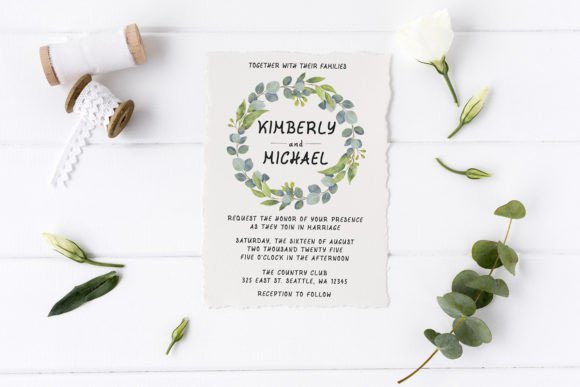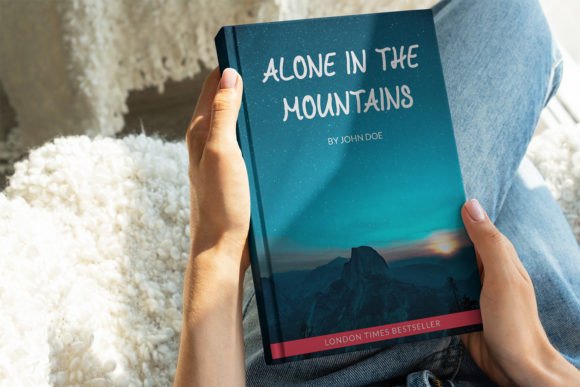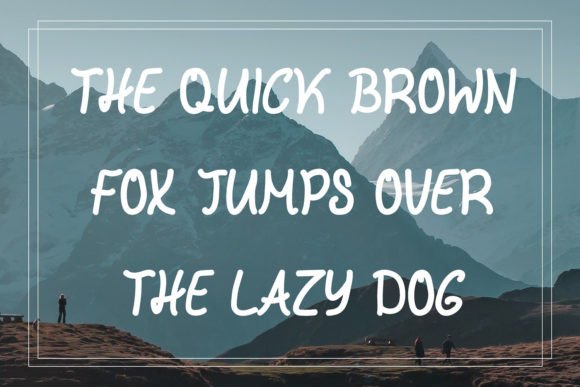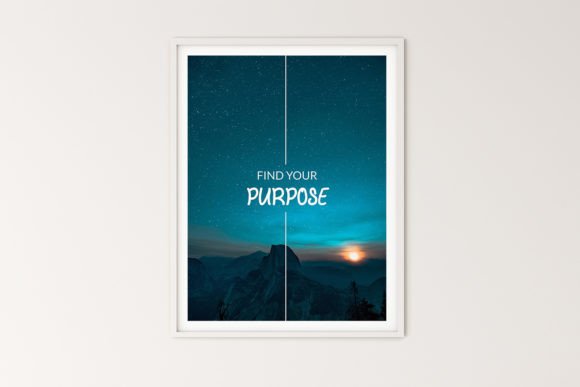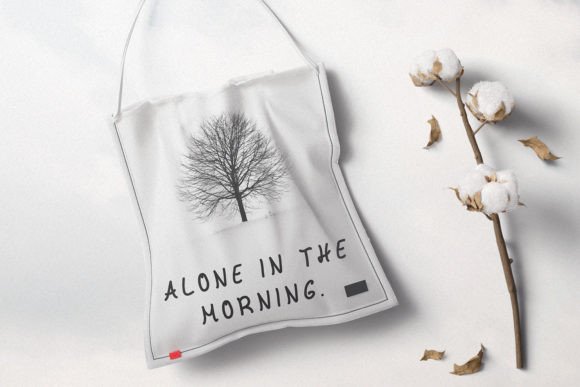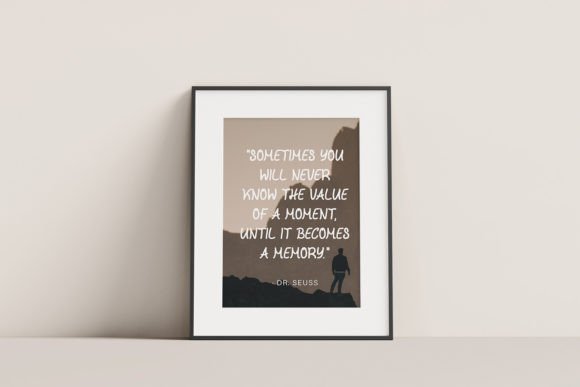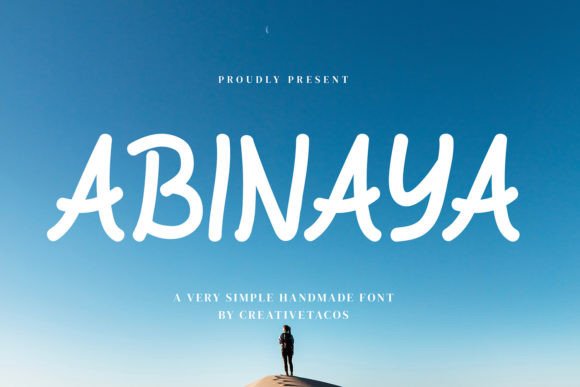
Introducing Abinaya Font: The Ultimate Handmade Font for Creative Designs
Are you a designer or crafter looking for a font that can add a touch of sweetness and quirkiness to your creations? Look no further than Abinaya Font! This handmade font is designed to bring a relaxed and casual vibe to your designs, making it perfect for a wide range of creative projects.
What is Abinaya Font?
Abinaya Font is a beautifully crafted handwritten font that exudes a sense of playfulness and charm. Its unique and irregular strokes give it a distinctly handmade feel that’s sure to capture the attention of your audience. Whether you’re working on a logo, packaging design, or social media post, Abinaya Font is the perfect choice for adding a personal touch.
Key Features of Abinaya Font
- Sweet and Quirky Design: Abinaya Font features a unique and whimsical design that’s perfect for creating eye-catching headlines, titles, and quotes.
- Casual and Relaxed Vibe: This font is designed to bring a sense of calmness and friendliness to your designs, making it perfect for branding, advertising, and marketing materials.
- Handmade Feel: The irregular strokes and imperfections in Abinaya Font give it a distinctly handmade feel that’s sure to add a touch of personality to your designs.
- Versatile: Abinaya Font is suitable for a wide range of creative projects, including packaging, presentations, logos, posters, magazine layouts, and more.
Use Cases for Abinaya Font
Abinaya Font is an incredibly versatile font that can be used for a variety of creative projects. Here are some ideas to get you started:
- Packaging Design: Add a personal touch to your product packaging with Abinaya Font. It’s perfect for labels, tags, and branding materials.
- Logos and Branding: Create a unique and memorable logo for your business or brand with Abinaya Font.
- Posters and Flyers: Use Abinaya Font to create eye-catching posters and flyers for events, promotions, and marketing campaigns.
- Social Media Graphics: Add a touch of personality to your social media graphics with Abinaya Font. It’s perfect for creating engaging and shareable content.
- Invitations and Stationery: Use Abinaya Font to create beautiful and unique invitations, greeting cards, and stationery.
Why Choose Abinaya Font?
With so many fonts available, why choose Abinaya Font? Here are just a few reasons why designers and crafters love this font:
- Unique and Eye-Catching: Abinaya Font is a one-of-a-kind font that’s sure to capture the attention of your audience.
- Easy to Read: Despite its quirky design, Abinaya Font is incredibly easy to read, making it perfect for body text and captions.
- Customizable: Abinaya Font comes with a range of customization options, allowing you to tailor it to your specific design needs.
Abinaya Font is a sweet, quirky, and casual vibe handwritten font that’s perfect for adding a personal touch to your designs. With its unique and eye-catching design, ease of use, and versatility, it’s no wonder that Abinaya Font is a go-to choice for designers and crafters. Whether you’re working on a logo, packaging design, or social media post, Abinaya Font is sure to bring a touch of charm and personality to your creations.